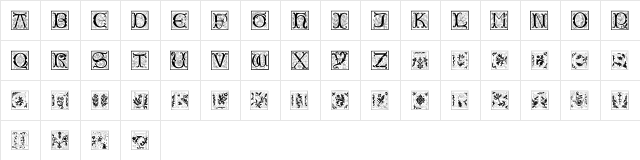
Ramo 2 Caps Regular
Design Context for Ramo 2 Caps Typeface
Ramo 2 Caps is a composed and adaptable typeface that performs quietly and consistently across a wide range of design contexts.